Valentine’s Day is that special time of year when love is everywhere you look — on our phones, cards, social media, and gifts. But here’s a secret: even if your message is sweet, if the design isn’t romantic, it won’t feel right. That’s where fonts come to help. Yes, fonts are the key players behind every nice card, fun social media post, and wedding invitation.
Think about it — would “Be Mine” feel as amazing if it was written in Arial? Probably not.
When you’re making anything for Valentine’s Day — be it a printable, a social media post, a homemade gift, or even an ad — the font you pick sets the mood. Is it sexy and classy? Fun and nice? Unique and artsy? Picking the right font can take your message from okay to awesome fast.
In this guide, I’ve chosen the best free and paid Valentine’s Day fonts for 2026, grouped by style: romantic, cute, and classy. Whether you’re saving money or want to buy some great fonts, you’ll find something here for what you are doing.
Looking for great fonts for Valentine’s Day? Check out this collection of the best free and paid options for 2026! From cute to elegant, they’re perfect for cards, social media, and handmade gifts.
Get ready to love these fonts. Let’s get started.
Scripted or Handwritten
1. Happy Love
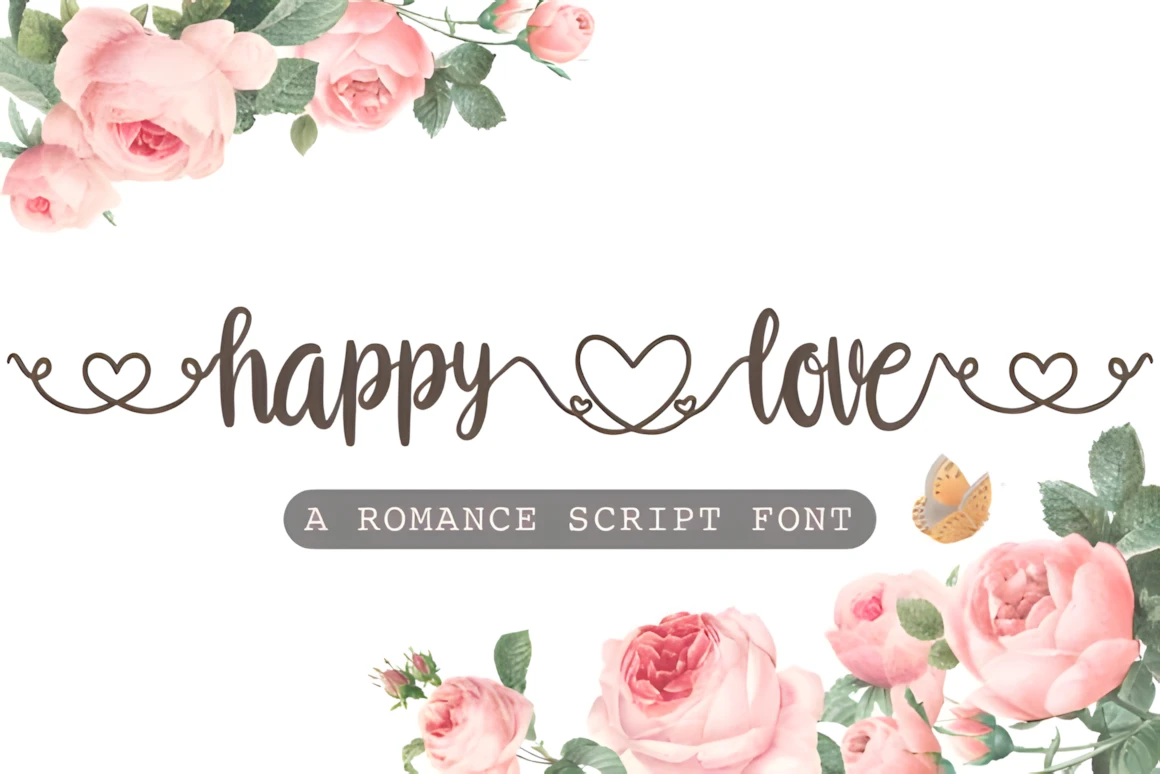
Happy Love is a handwritten font with a modern, stylish vibe. It works great for logos, branding, invites, cards, wedding stuff, social media, and lots of other projects!
2. True Love Font
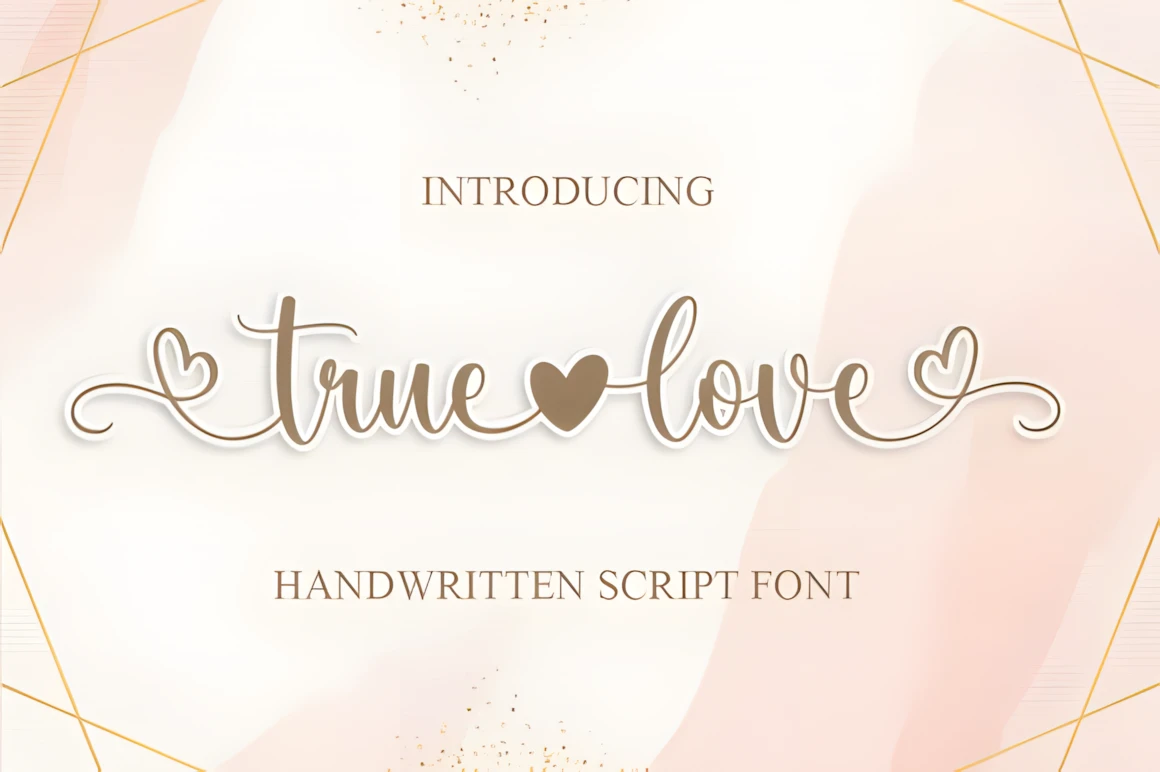
True Love is a handwritten font with a lovely, flowing style. Its characters are beautiful and well-balanced, making it a good fit for many designs.
3. Hello Baby
Hello Baby has a great handwritten feel and looks beautiful. It’s perfect for wedding invites, thank you notes, quotes, greeting cards, logos, business cards, and any design needing a personal touch. It includes a varied baseline, smooth lines and some really nice letter variations.
4. Alyana
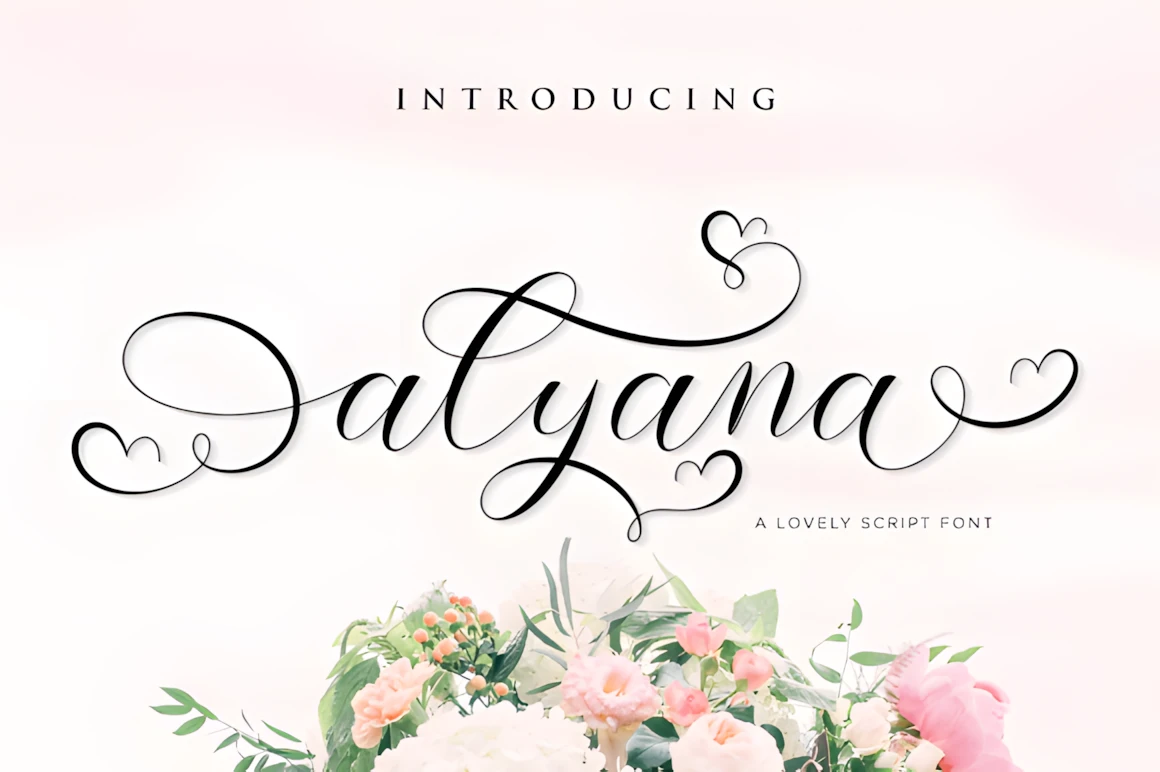
Alyana Fontis a script with a beautiful, delicate style and a certain charm. You’ll love its bold feel!
5. Winterlove
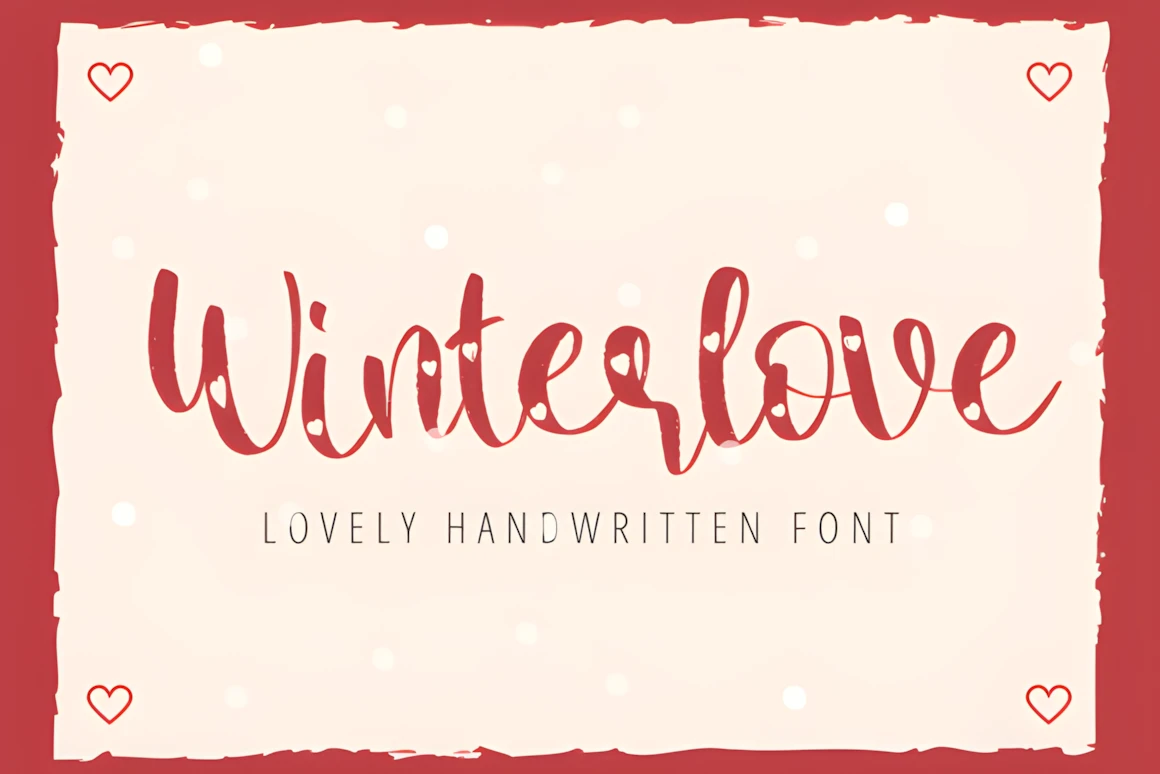
Winterlove Font is a display font with a fun, stylish look, great for your holiday crafts!
6. The Bentley
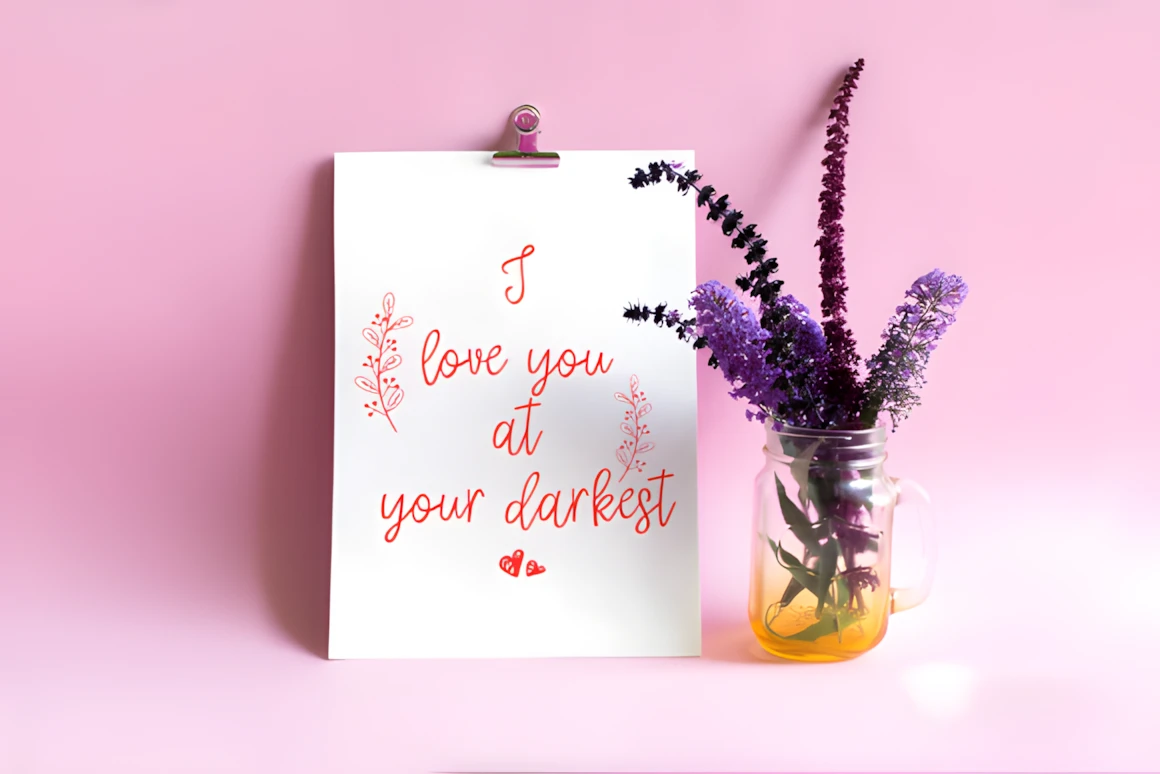
The Bentley Font script is a handwritten brush font that looks great. It’s perfect for giving your brand a personal touch and sprucing up your designs.
7. Baby Boho
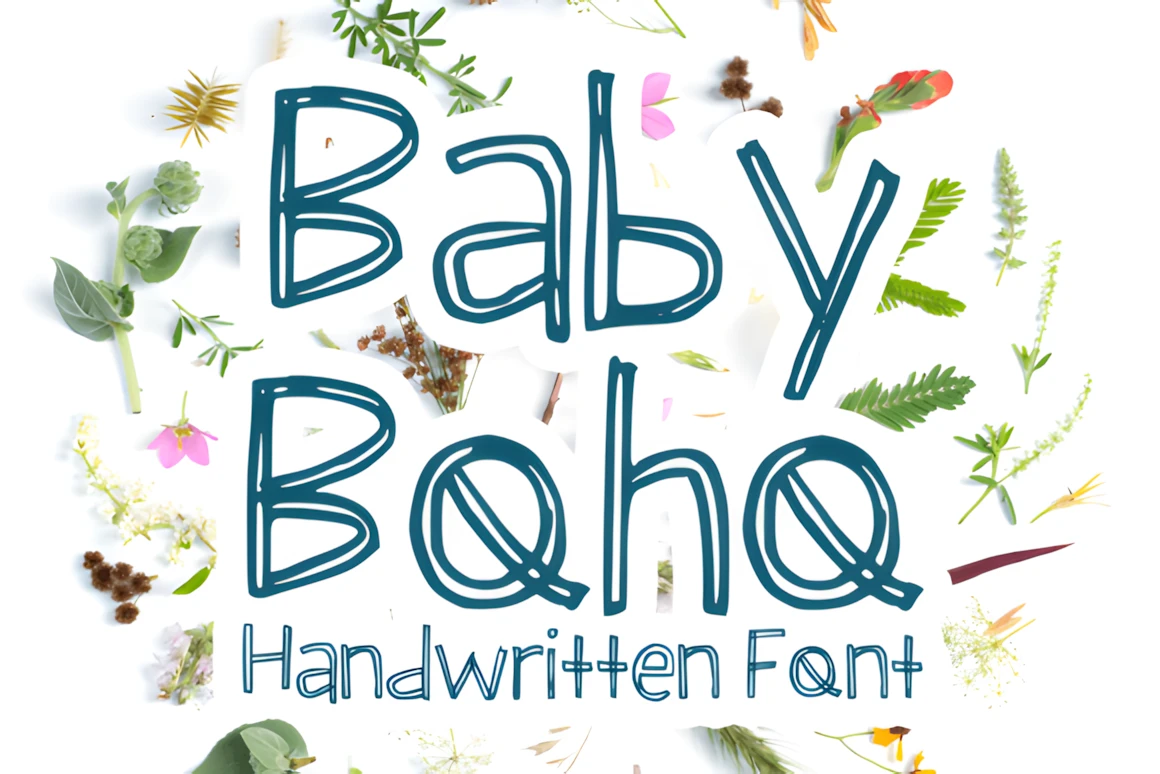
Baby Boho is a handwritten font for kids with a hippie vibe. It works great for t-shirts, kids’ books, greeting cards, stickers, posters, or anything needing a relaxed feel. Give it a shot to make cute designs and enjoy the positive vibes!
8. Lovebird
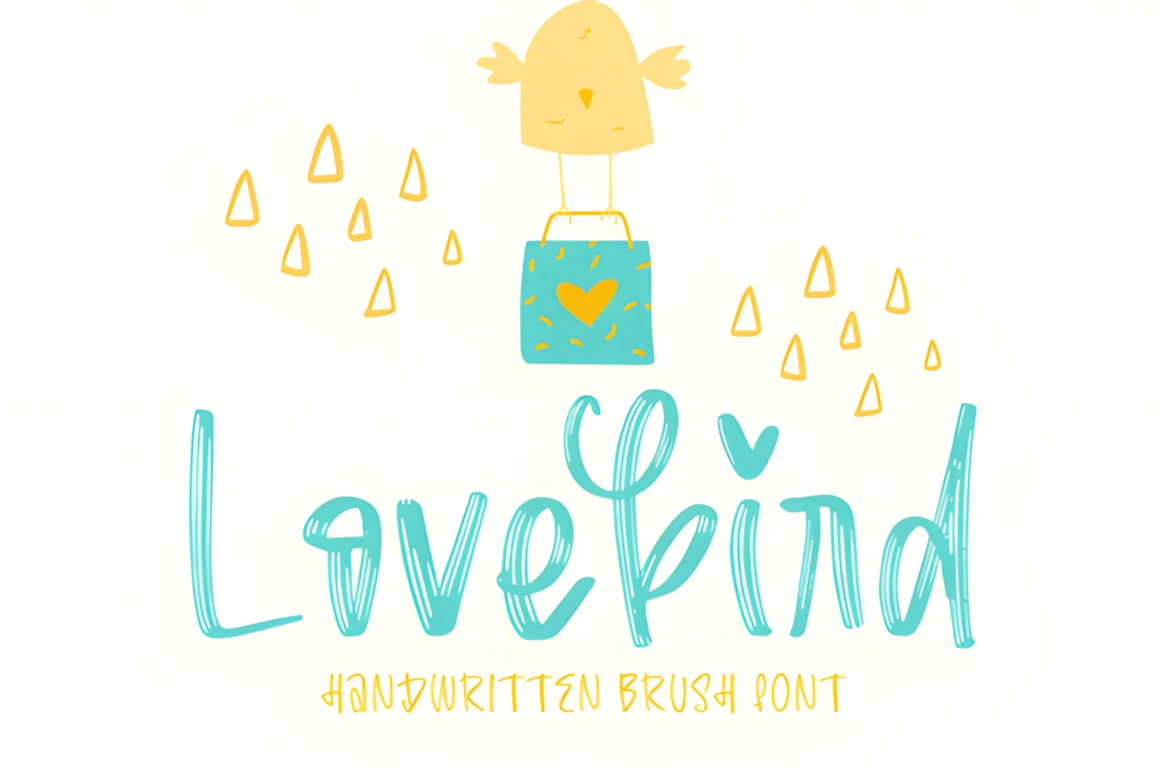
Lovebird is a cute, handwritten font that’s easy to read. Its style is natural and unique, so it works well with many designs. Let your imagination run wild!
9. Love Brittney
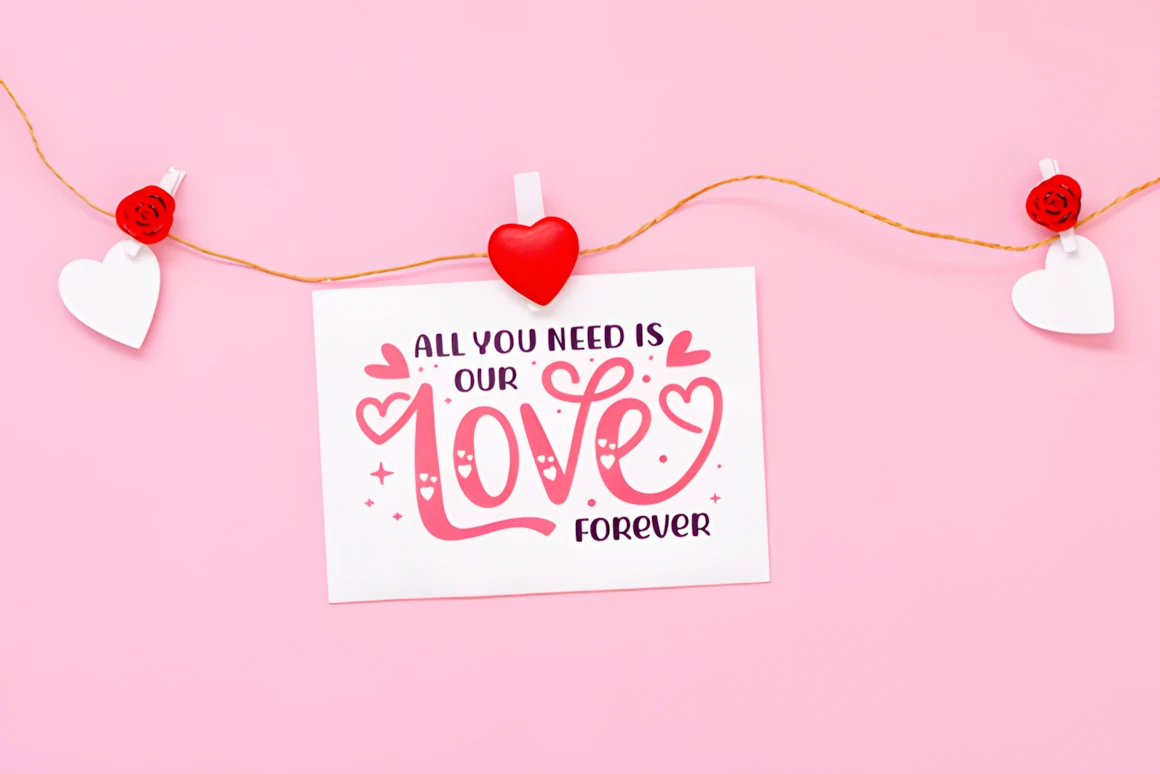
Love Brittney is a font that’s both stylish and sweet, great for romantic designs. Each letter has cute little hearts.
10. The Valentines
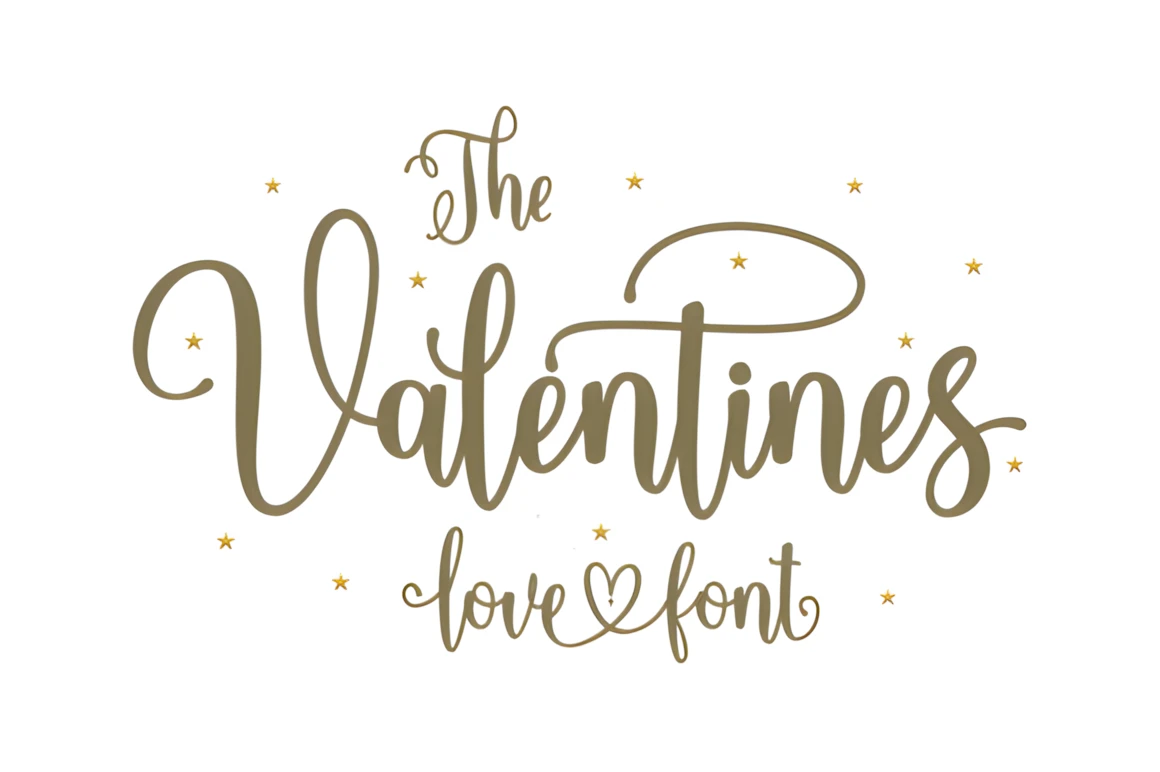
Valentines is a sweet and romantic script font that works great for titles. Think clothing, invites, book covers, stationery, quotes, brand work, logos, greeting cards, tees, packaging, posters, and all sorts of things.
11. Love Match
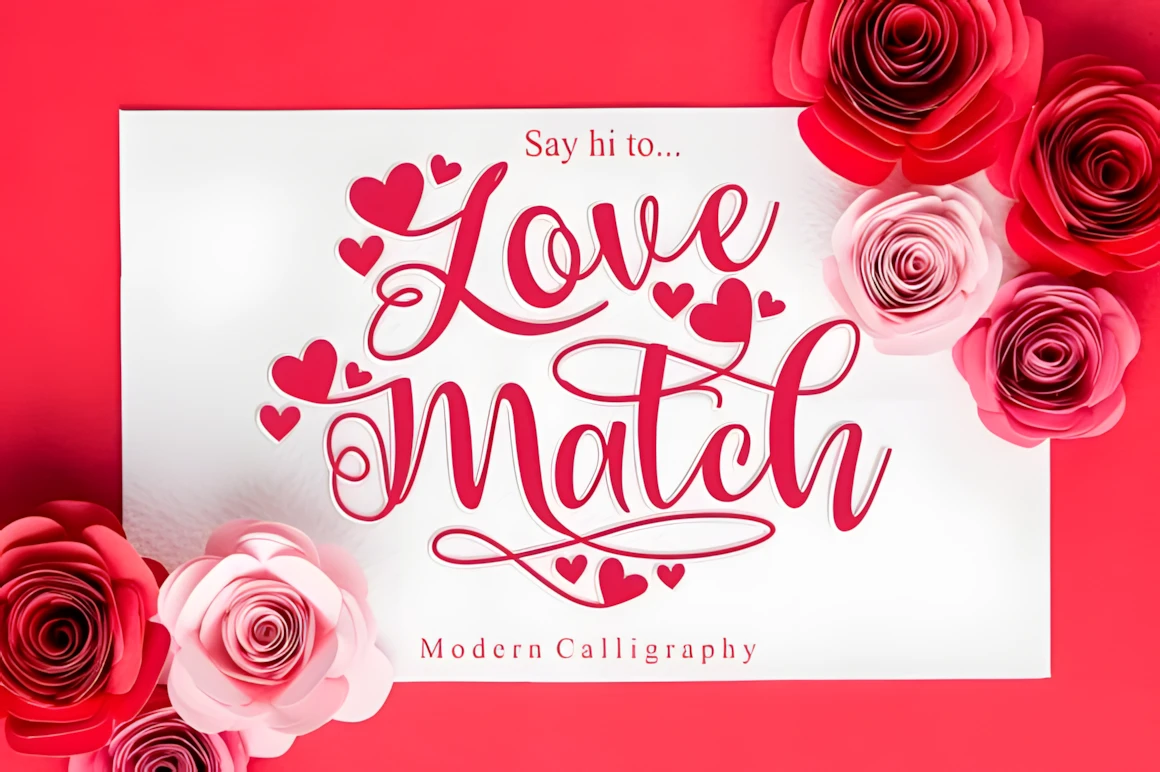
Love Match is a handwritten romantic font with sweet heart accents. Its smooth curves make it great for fashion brands or editorial layouts. You can add it to your designs without worry.
Decorative
12. Liontine
Liontine Script is a romantic, rounded font where the letters playfully move along the baseline. It can give a luxury feel to your designs.
13. Dream Candy
Dream Candy is a fun, patterned font that’s great for decorations. It includes stripes, dots, stars, hearts, and more, so you can make really cute typography. It’s perfect for crafts, designs for kids, branding, logos, wall art, websites, and lots of other things.
14. Love Monster
Love Monster is a cool and friendly font that’s great for display. You’ll love how versatile it is for making awesome designs!
15. With Love
With Love is a script font that feels modern and is well-made. It takes its inspiration from classic calligraphy.
16. Honey Lollipops
Honey Lollipops is a handwritten font that’s sweet and friendly. It’s playful and a bit quirky, making it a good choice for your social media posts, posters, cute cards, and lots of other things!
17. Heart Font
Heart is a cool display font with a graffiti style, giving it an urban street art feel. It works well for designs like t-shirts, sportswear, logos, ads, or clothing.
18. Retro Heart You
Retro Heart You is a fun, cute display font with a groovy vibe. Its quirky and whimsical style can add a hippie touch to any design.
19. Valentine
Valentine is a color font that’s lovely and well-designed. It has a hand-drawn feel, and the letters have patterns that remind you of Valentine’s Day. You can use this font for all sorts of things to make your work look really cute!
20. Candy Kisses
Candy Kisses Valentine is a relaxed, bold, and decorative font. Its fun style will make your Valentine’s Day crafts really pop.
Font Duos
21. Hola Rainbow
Hola Rainbow is a playful font duo with a stylish script and serif display. It’s fresh, lovely, and perfect for cute rainbow designs.
22. Garden House
Garden House is a cool font trio with sans, serif, and signature styles that go well together. Add it to your creative work and see how it turns out!
23. Sweet Heart
Sweet Heart is a fun font family with Script, Sans Serif, and Display styles. It’s super flexible and works well for lots of designs, making them even better.
24. Livia Boho
Livia Boho is a charming font pairing that includes a script and a display style. It’s PUA encoded, so all the special characters are easy to access. Use them together or on their own—they’ll be a great addition to your font collection!
25. Holiday Lover in Paris
Holiday Lover in Paris is a handwritten font that’s casual, friendly, and kinda trendy. It’s a cool choice for designs when you want to add a relaxed, skilled vibe.